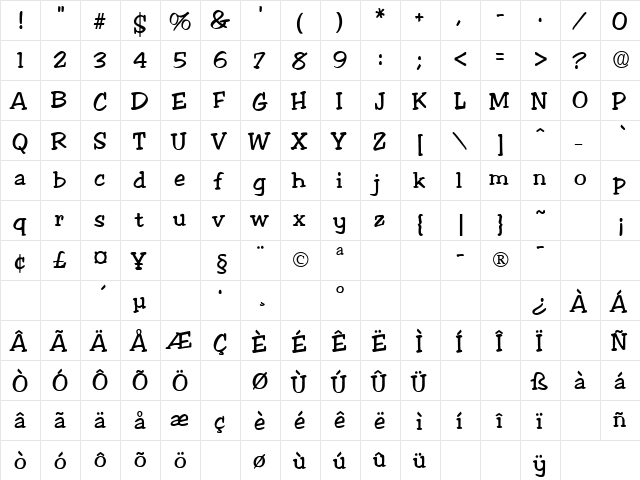
Courte Regular
Design Context for Courte Typeface
Courte is a composed and adaptable typeface that performs quietly and consistently across a wide range of design contexts.